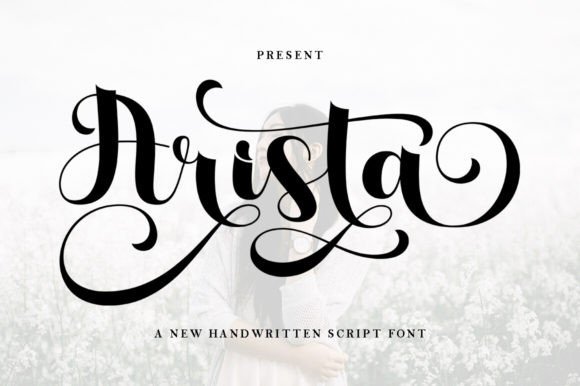
The Warmth of Arista Font: A Designer’s New Best Friend
I still remember the project that led me to discover Arista Font. I was working on a custom wedding invitation design, and my client specifically asked for a font that felt ‘handwritten’ and ‘warm.’ I scoured the internet, tried out countless fonts, but nothing seemed to capture that perfect blend of whimsy and sincerity. That was until I stumbled upon Arista Font. Its delightful, handwritten strokes and varied letterforms instantly won me over, and I’ve been hooked ever since.
An Honest Review of Arista Font
- ✨ Warm and Inviting: Arista Font exudes a sense of warmth and personality that’s hard to find in digital fonts.
- ✅ Versatile: Perfect for invitations, greeting cards, branding, and any project that requires a touch of authenticity.
- 💕 Emotional Connection: The whimsical strokes and varied letterforms evoke a sense of charm, making it ideal for conveying heartfelt messages.
While Arista Font is a gem, it’s not without its quirks. For instance, ⚠️ some users might find the font’s uniqueness challenging to pair with other typefaces. Additionally, 🤔 the font’s handwritten nature means it might not be the best choice for very formal or corporate designs.
The Story Behind Arista Font
Arista Font was designed with the intention of capturing the warmth and personality of handwritten text. Its creator aimed to craft a font that felt approachable, yet unique. While the exact backstory might be shrouded in mystery, one thing is clear: Arista Font has become a beloved addition to many designers’ toolkits.
| Font Name | Arista Font |
| Author | TM Type |
Q: What makes Arista Font unique?
A: Arista Font’s unique blend of whimsical strokes and varied letterforms sets it apart from other fonts.
Q: Is Arista Font suitable for body text?
A: While Arista Font is beautiful, its handwritten nature makes it more suitable for headings, titles, or short paragraphs.